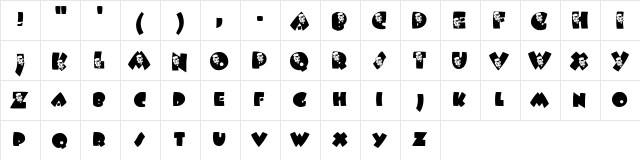
AL Conscience AH Regular
Design Context for AL Conscience AH Typeface
AL Conscience AH is a composed and adaptable typeface that performs quietly and consistently across a wide range of design contexts.